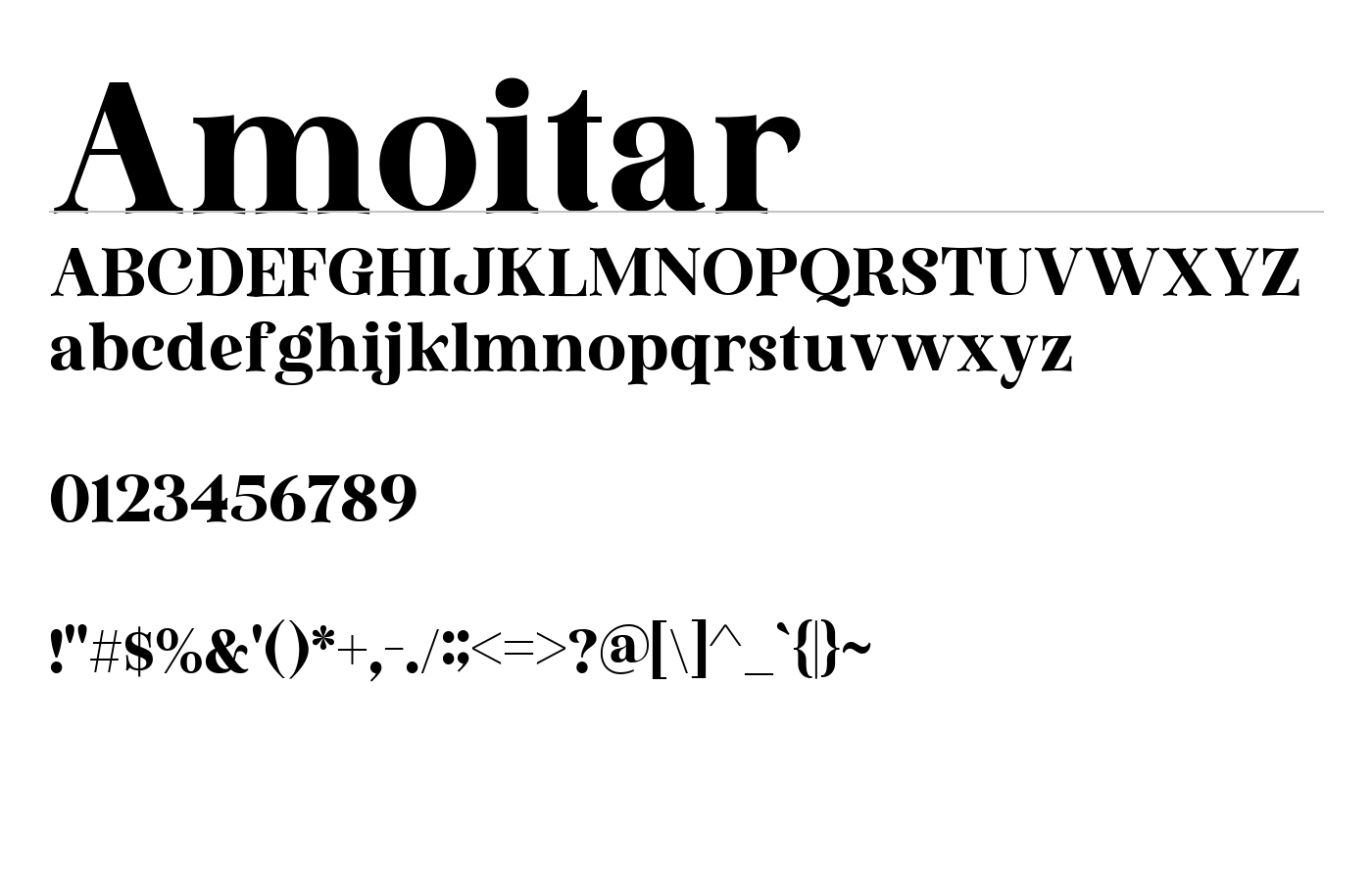
Amoitar is a classic serif font with a strong modern Didone influence, featuring high contrast between thick and thin strokes and elegant, sharp serifs. Its balanced proportions, refined details, and solid weight make it perfect for sophisticated branding, editorial use, and stylish headlines where a luxurious and authoritative tone is desired. This font combines timeless elegance with contemporary clarity, enhancing any design that seeks a polished and professional look.
Amoitar Font
About Amoitar Font